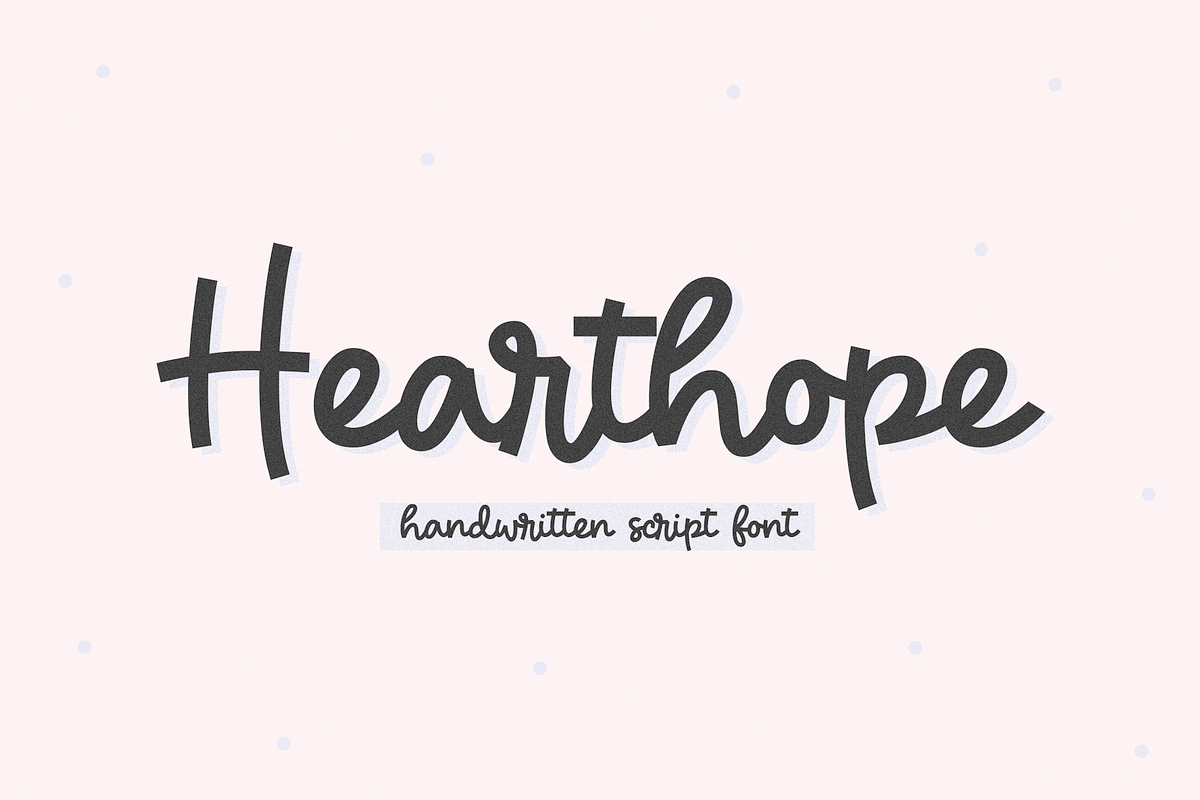
Hearthope | Handwritten Script Font Free Download
Hearthope Handwritten Script Font Free Download
Hearthope Handwritten Script Font Free Download is the perfect choice if you're seeking a modern yet elegant handwritten typeface. With its smooth curves and natural flow, this font is ideal for invitations, logos, branding, and social media graphics. Designed to mimic authentic handwriting, Hearthope adds a personal touch to any design project. Whether you're a graphic designer or a DIY enthusiast, this font brings a warm, creative vibe to your work.